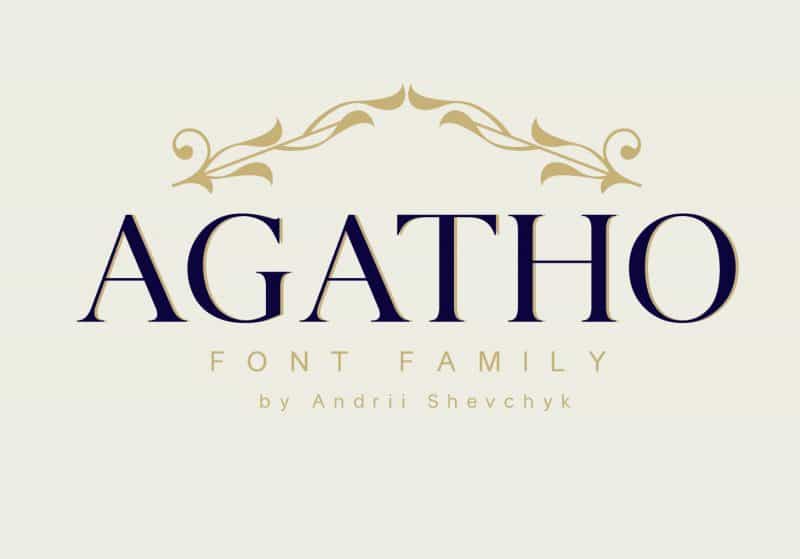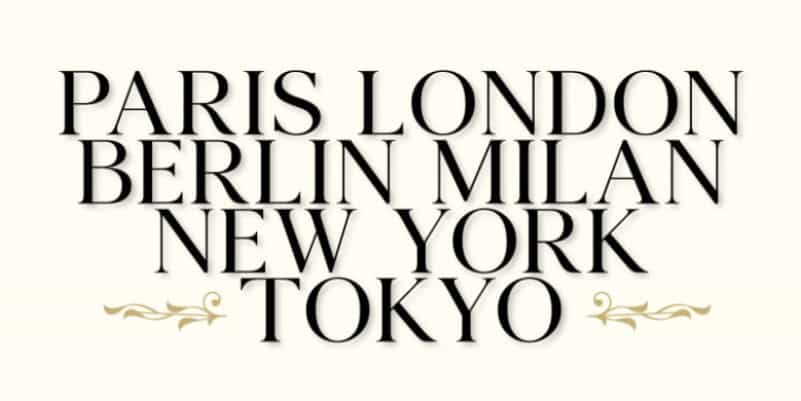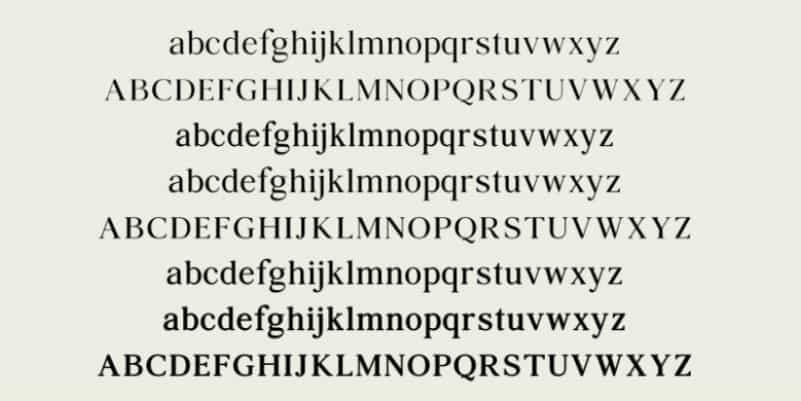
Agatho is a modern, graceful and fine serifs font. Some of the uses are logos, wedding invitations, headings, t-shirts, letterhead, signage, labels, news, posters, badges and many more.